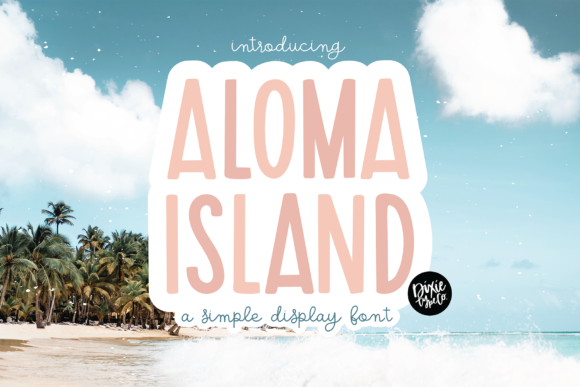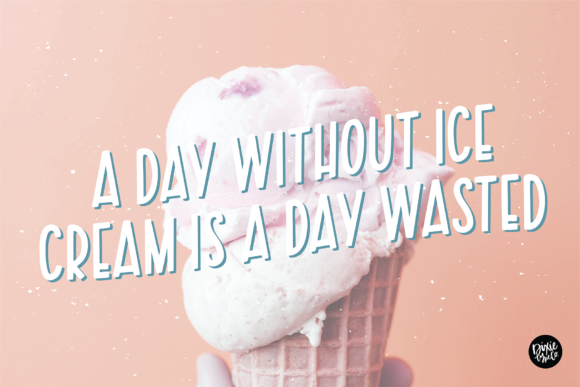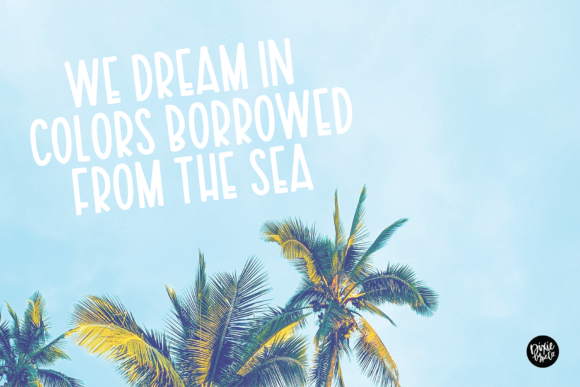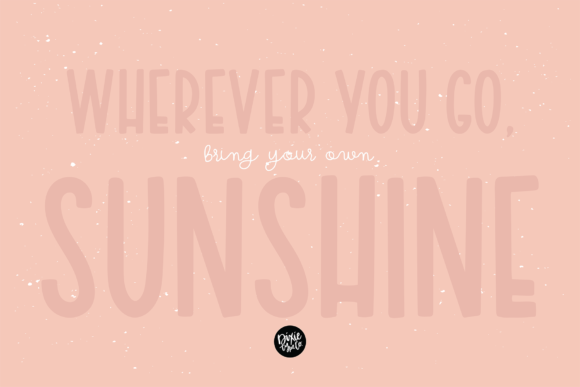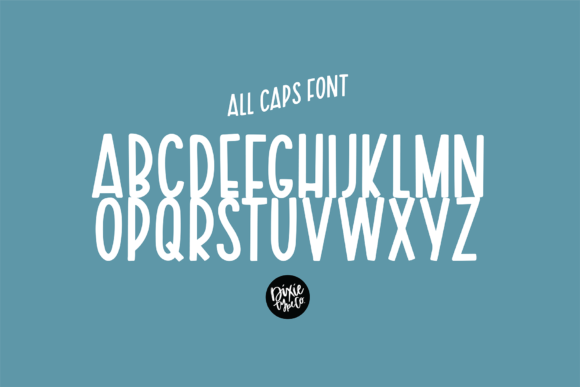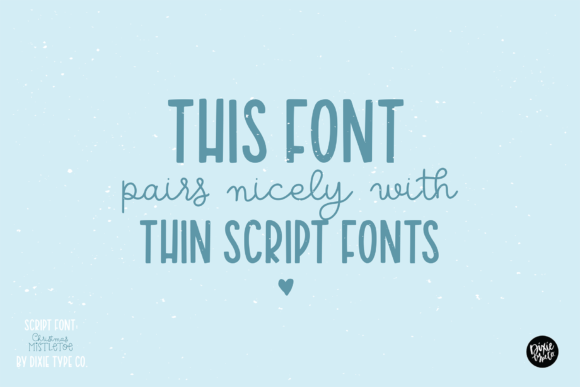
Aloma Island Font
Aloma Island is a classic and simple sans serif font. It can easily be matched to an incredibly large set of projects, so add it to your creative ideas and notice how it makes them stand out!